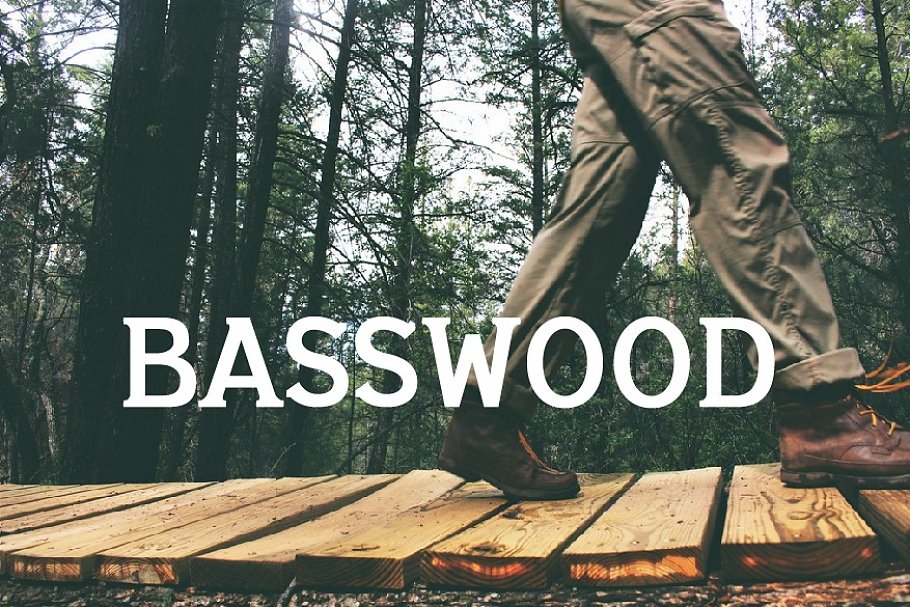
Are you in search of the perfect font for your next book project? Look no further than the Basswood Serif Font. Created by the talented Aleksandra Marjanovic, this font family is the ideal choice for any book title or chapter heading.
Basswood Bold Serif Font is a modern take on the traditional serif font, which combines the elegance of the past with the clean lines of the present. The result is a font that is both eye-catching and easy to read, making it the perfect choice for any book project.
But what sets Basswood Serif Font apart from other serif fonts on the market? It's the perfect blend of classic and contemporary design, which makes it a font that stands out from the crowd. Its bold and confident look conveys a sense of authority and trust, making it the ideal choice for any book project.